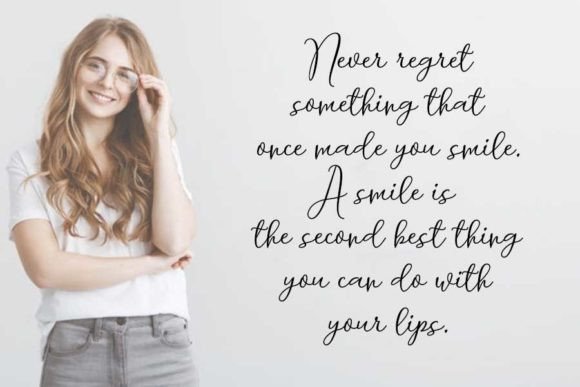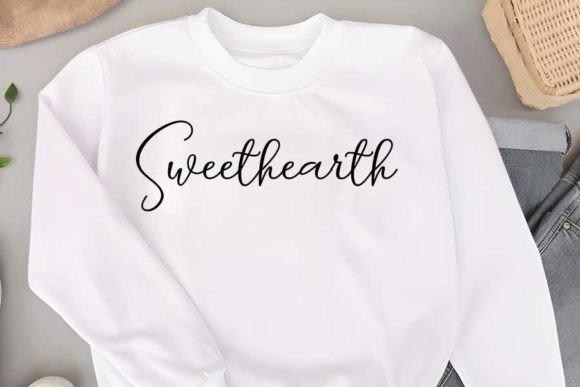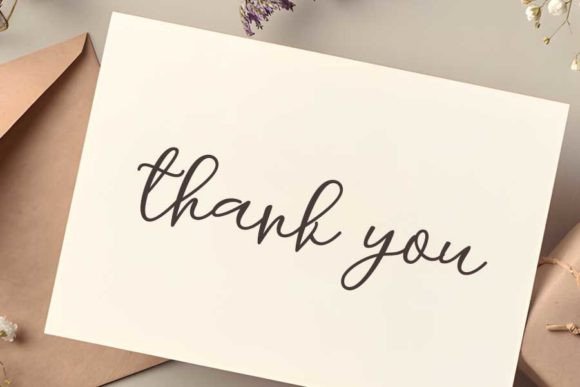
Discover the Charm of Blacksmith Font: A Sweet and Romantic Script Font
Are you a designer, crafter, or DIY enthusiast looking for a font that can add a touch of elegance and sophistication to your creative projects? Look no further than the Blacksmith Font, a beautiful script font that is sure to capture your heart. With its sweet, romantic, and beautiful curves, this font is perfect for a wide range of applications, from Instagram posts to calligraphy scripts, and everything in between.
What Makes Blacksmith Font So Special?
Blacksmith Font is a true gem in the world of typography. Its unique features include:
- Beautiful Curves: Every letter in the Blacksmith Font features stunning curves that exude elegance and sophistication.
- Romantic and Sweet: This font has a romantic and sweet feel to it, making it perfect for projects that require a touch of whimsy and charm.
- Script Font: Blacksmith Font is a script font that is designed to mimic the look and feel of handwriting, making it perfect for calligraphy scripts and other creative projects.
Uses for Blacksmith Font
Blacksmith Font is a versatile font that can be used in a wide range of applications, including:
- Instagram Posts: Add a touch of elegance to your Instagram posts with the Blacksmith Font. Use it to create beautiful quotes, captions, and stories that will leave your followers in awe.
- Calligraphy Scripts: Blacksmith Font is perfect for calligraphy scripts, whether you’re creating DIY projects or working on a professional design.
- DIY Projects: From crafting to woodworking, Blacksmith Font can add a touch of personality to your DIY projects. Use it to create signs, labels, and other decorative elements.
- Graphic Design: Blacksmith Font can be used in a wide range of graphic design projects, from brochures to posters, and even logos.
Tips for Using Blacksmith Font
Here are some tips for getting the most out of the Blacksmith Font:
- Pair it with Other Fonts: Blacksmith Font pairs well with other fonts, especially sans-serif fonts. Experiment with different combinations to find the perfect look for your project.
- Use it for Headlines: Blacksmith Font is perfect for headlines and titles. Use it to create eye-catching headings that will draw attention to your content.
- Experiment with Colors: Blacksmith Font looks great in a variety of colors. Experiment with different colors to find the perfect look for your project.
| Font Name | Blacksmith Font |
| Author | Leontyn Art |